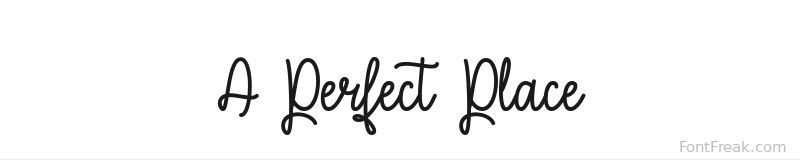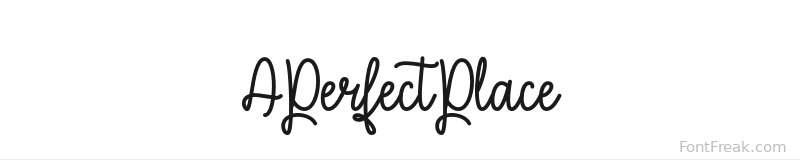
APerfectPlace
A Perfect Place
About APerfectPlace
APerfectPlace font free download is a charming handwritten typeface designed by Misti Hammers. This decorative font falls under the script category, showcasing a fluid and organic style that embodies a warm and inviting aesthetic. The strokes are elegantly crafted with varying weights, creating a delightful contrast that gives each letter a unique personality. The spacing between characters is thoughtful, ensuring readability while maintaining the whimsical charm that defines this typeface.
The visual characteristics of APerfectPlace are characterized by its playful loops and swirls, which add a touch of flair to your design projects. This makes it an excellent choice for wedding invitations, where the romantic script can beautifully convey heartfelt messages. Additionally, it works wonderfully for greeting cards, providing a personal touch to any occasion. Restaurant menus can benefit from its inviting style, enticing patrons with a sense of warmth and creativity. For content creators, APerfectPlace can enhance blog headers or social media graphics, helping to establish a distinctive brand identity.
Targeting graphic designers, small business owners, and content creators, APerfectPlace caters to those looking to infuse their work with a sense of authenticity and charm. Its versatility makes it suitable for a wide range of creative applications, allowing users to express their unique vision effortlessly.
What sets APerfectPlace apart is its ability to blend elegance with a casual feel, making it ideal for projects that require a personal touch without sacrificing sophistication. This font stands out not only for its aesthetic appeal but also for its capacity to evoke emotion, making it a perfect addition to any designer's toolkit. Embrace the charm of APerfectPlace and elevate your next project with this delightful typeface.